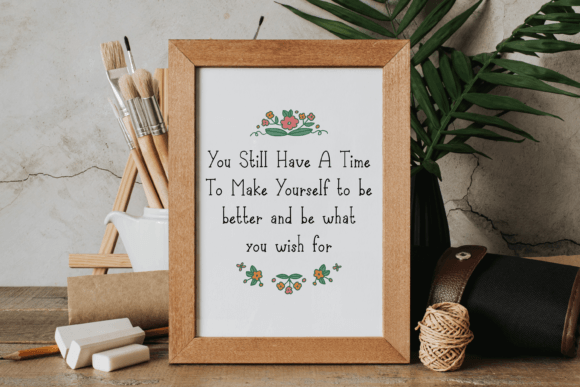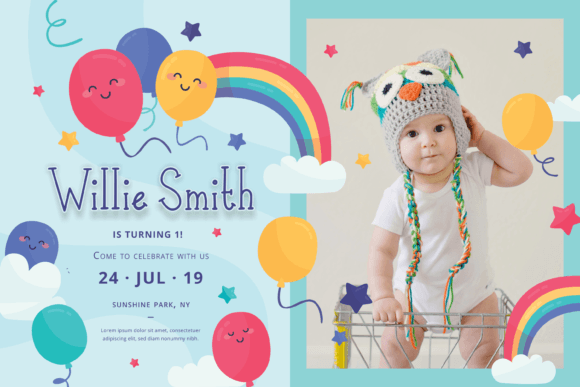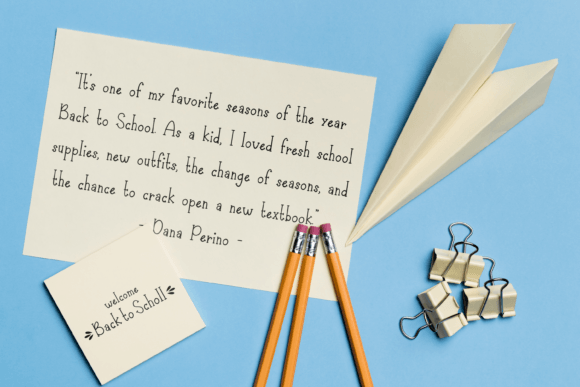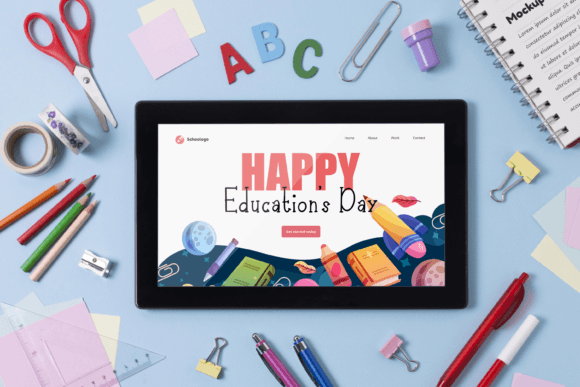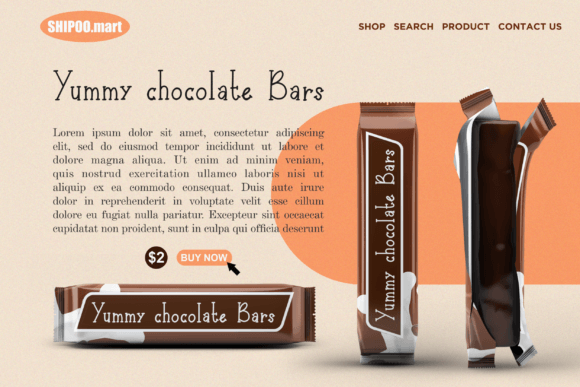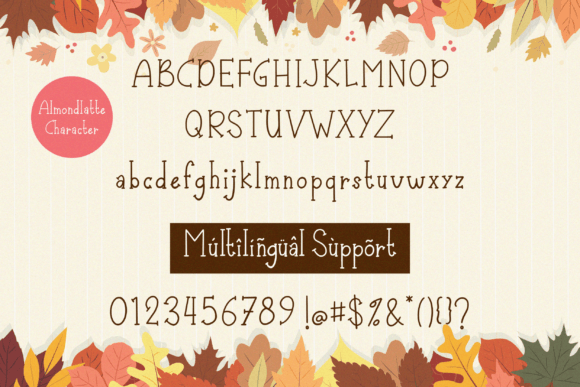
The Almondlatte Font: A Cute Serif Delight for Creative Projects
Ah, the elusive perfect font. You know, that one that makes your design project go from meh to mesmerizing. I recall working on a branding project for a craft bakery, and the struggle was real. The client wanted a font that was both elegant and playful, and I was determined to find it. That’s when I stumbled upon the Almondlatte font, and let me tell you, it was love at first sight! πŸ’•
What I Love About Almondlatte ✨
• Adorable serif details that add a touch of whimsy to any design βœ…
• Perfect for product packaging, branding projects, magazines, social media, and weddings πŸŽ‰
• Works beautifully with illustrations and graphics πŸ“ˆ
• Easy to read, even in smaller font sizes πŸ“š
Small Quirks or Limitations πŸ€”
• May not be the best choice for very formal or corporate designs ⚠️
• Some users may find the serifs a tad too ornate for certain projects πŸ€”
Exploring OpenType Features and Glyphs 🌟
One of the best things about Almondlatte is its range of OpenType features and glyphs. These allow you to customize your text and add unique touches to your design. Some of the features you can explore include:
• Ligatures: Combine letters for a more elegant look πŸ’•
• Stylistic alternates: Swap out letters for alternative designs 🎨
• Glyphs: Add decorative elements, such as flourishes or ornaments 🌸
The Story Behind Almondlatte: A Designer’s Inspiration πŸ“š
Almondlatte was created by a talented designer who wanted to craft a font that was both adorable and versatile. Inspired by the world of baking and sweet treats, Almondlatte is the perfect blend of playfulness and sophistication. The designer aimed to create a font that would make designs feel approachable, friendly, and visually appealing 😊.
Q: What type of projects is Almondlatte best suited for?
Almondlatte is perfect for product packaging, branding projects, magazines, social media, weddings, or just used to express words above the background πŸŽ‰.
Q: Is Almondlatte available in different font weights?
Yes, Almondlatte comes in various font weights, allowing you to use it for both headings and body text πŸ“Š.